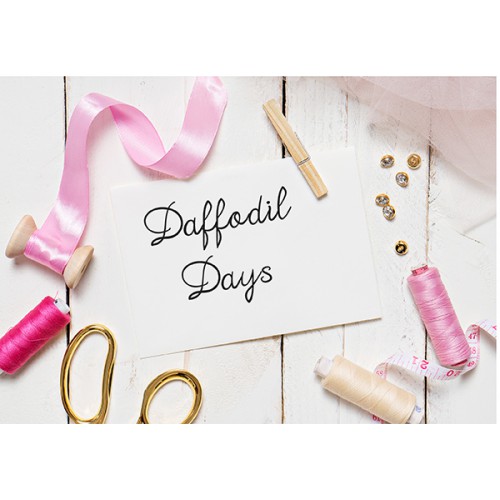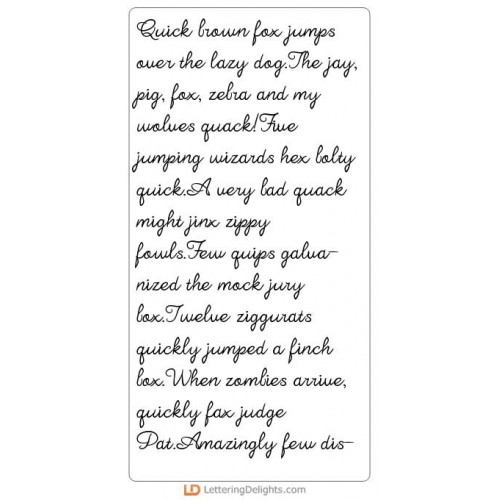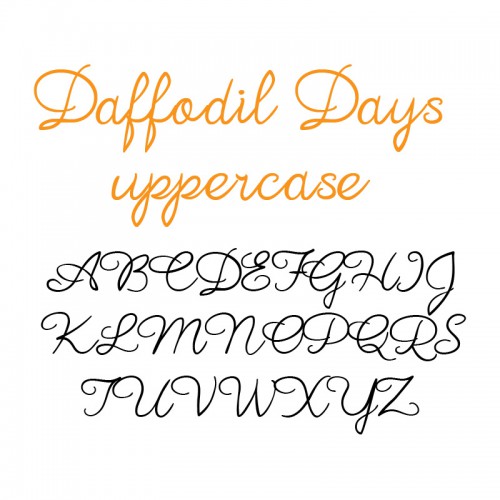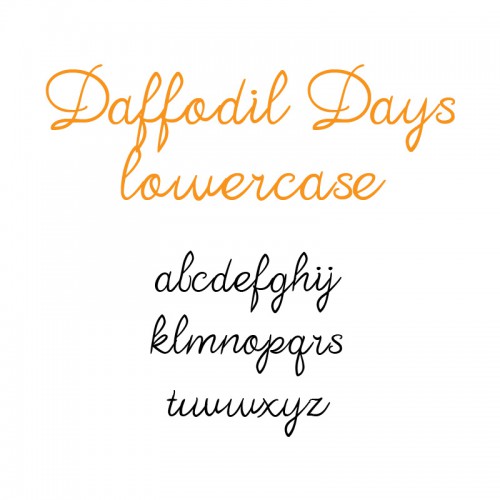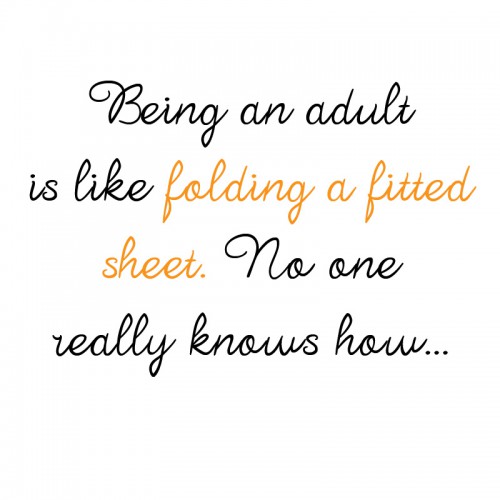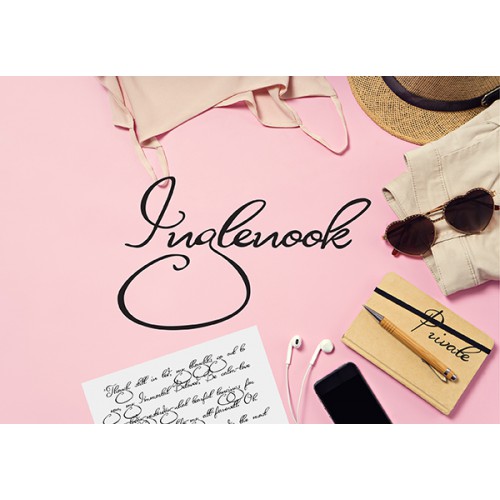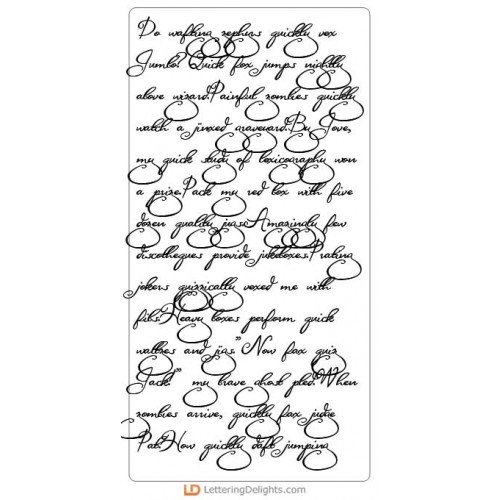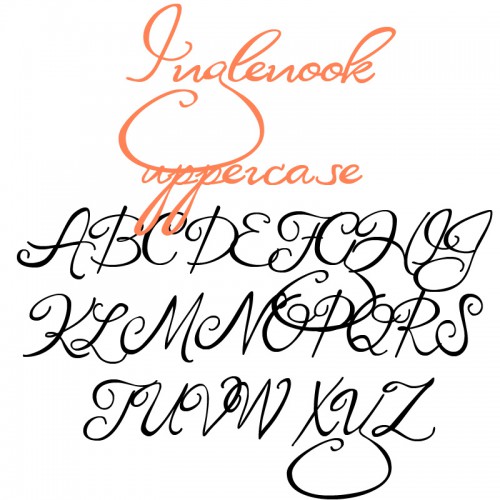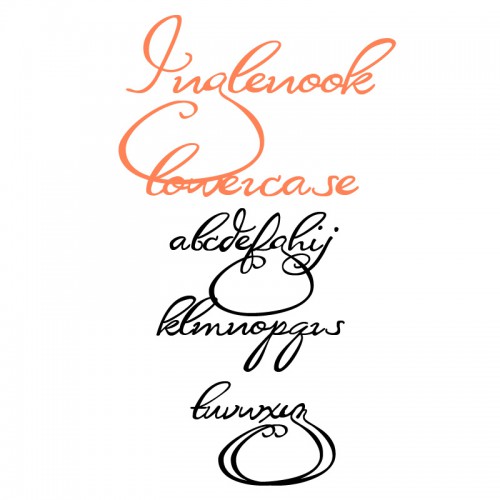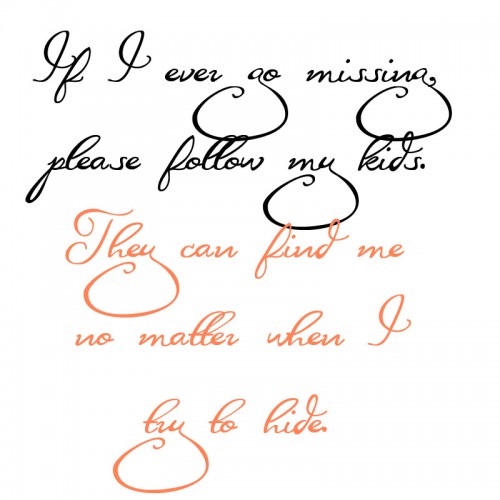
Scriptorious 3.0 Font Bundle
ZP Daffodil Days - FN
This gorgeous "flourished" version of Daffodil Days has extra ornate capitals and descenders. Check ..
ZP Inglenook - FN
This gorgeous cursive script has extreme descenders...
PN Imagination - FN
This gorgeous script has a flourished and curly uppercase...
PN Radioactive - FN
This gorgeous script has a casual and short uppercase and taller lowercase...
ZP Infatuation - FN
This gorgeous font has an ornate uppercase...
ZP Promise Ring - FN
This beautiful script has enough weight to cut out perfectly on your digital cutting machine...
ZP Grimalkin - FN
This fun script has extra rounded descenders...
PN Bigshot - FN
This gorgeous script font has a very formal uppercase...
PN New Beginnings - FN
This simple handwritten script is perfect for journaling, cards, and more...
PN Lulu Blue - FN
This casual script font is great for journaling, cards, letters, and more...
PN Wintergreen - FN
This casual hand-written script is great for journaling, letter writing, and more...
ZP Dandy Lion - FN
This fun and whimsical script has squared off tails and is great for welding and cutting on your dig..
ZP Spellbinding Quasi - Script - FN
This hand-printed quasi-script is a cross between courier and script...
PN Unicorn Script - FN
This fun and whimsical script has a slightly toggled baseline and curly uppercase...
PN Adorable - FN
This fun and whimsical mixed-case font is also partially script...
ZP Daisy Street - FN
This simple handwritten cursive script has no bells and whistles. It's just a perfect everyday scrip..
PN Nutmeg - FN
This fun script has an extra flourished uppercase...
PN Maple Syrup - FN
This hand-inked font has a whimsical and crafty feel...
ZP Carpe Diem - FN
This fun and whimsical script has mis-sized lettering throughout...
ZP Southern Charm - FN